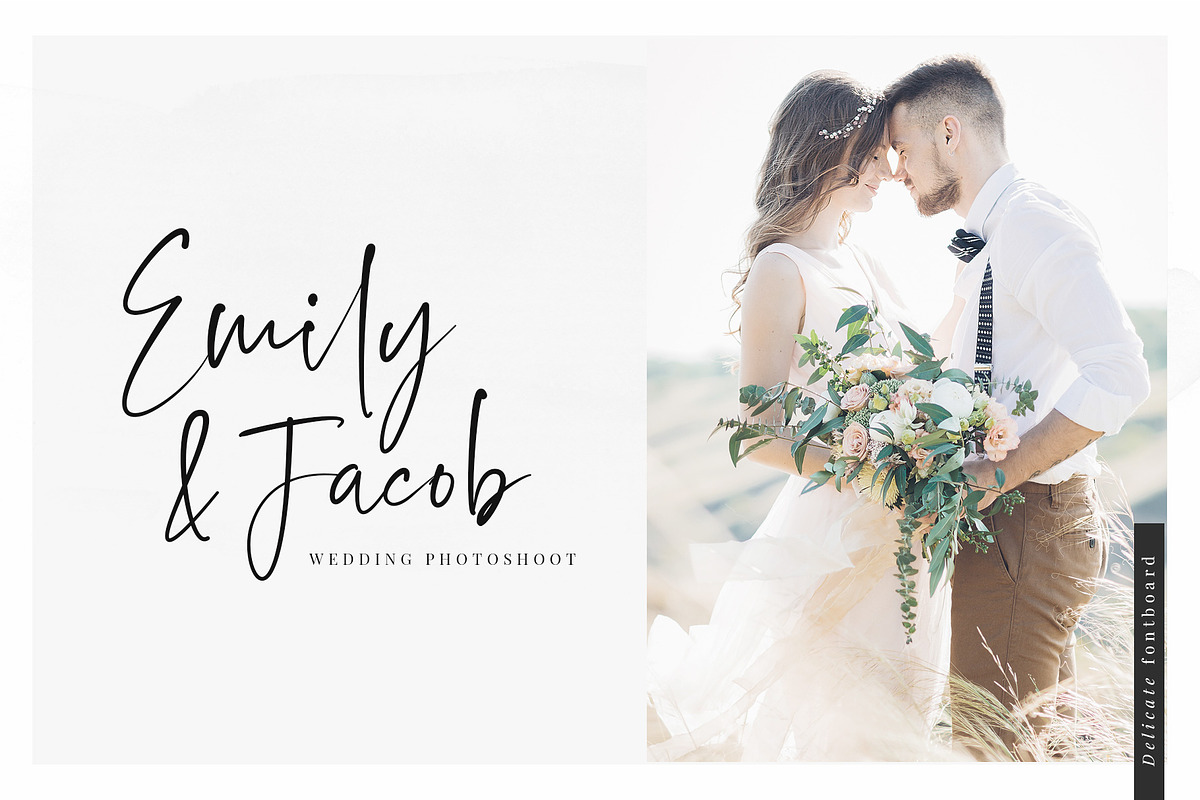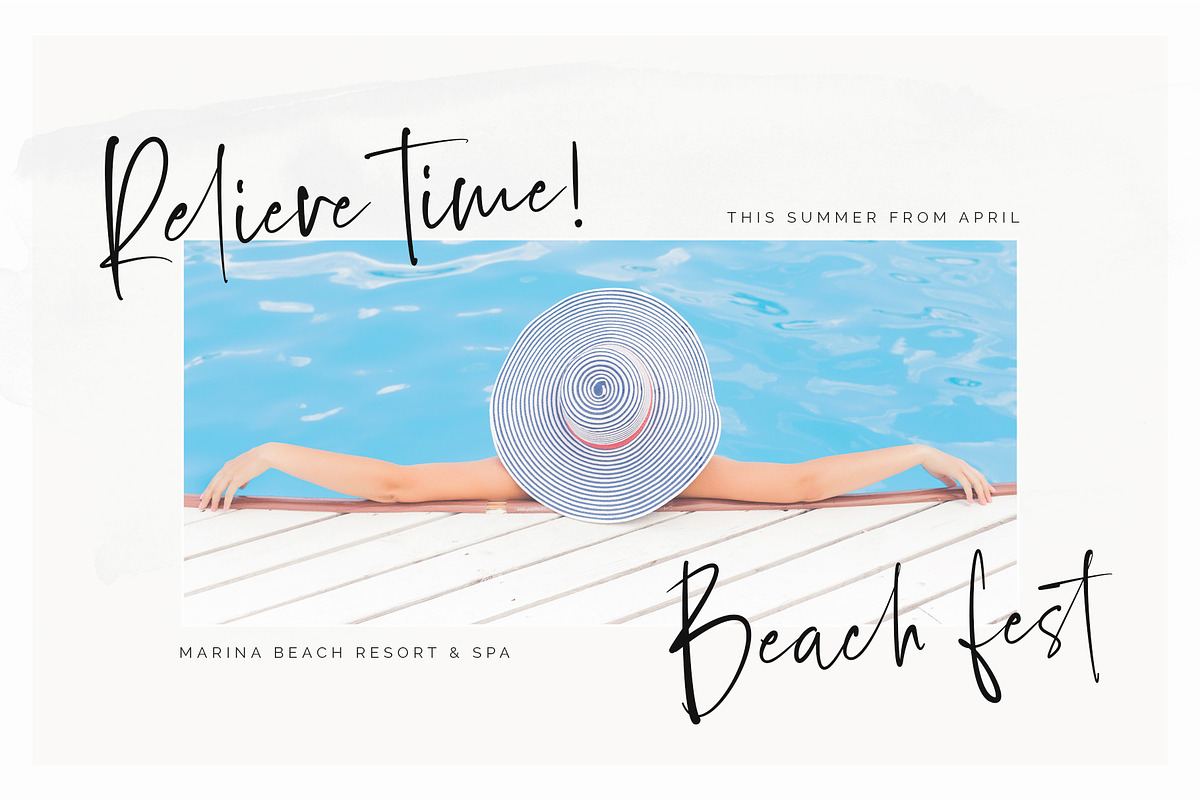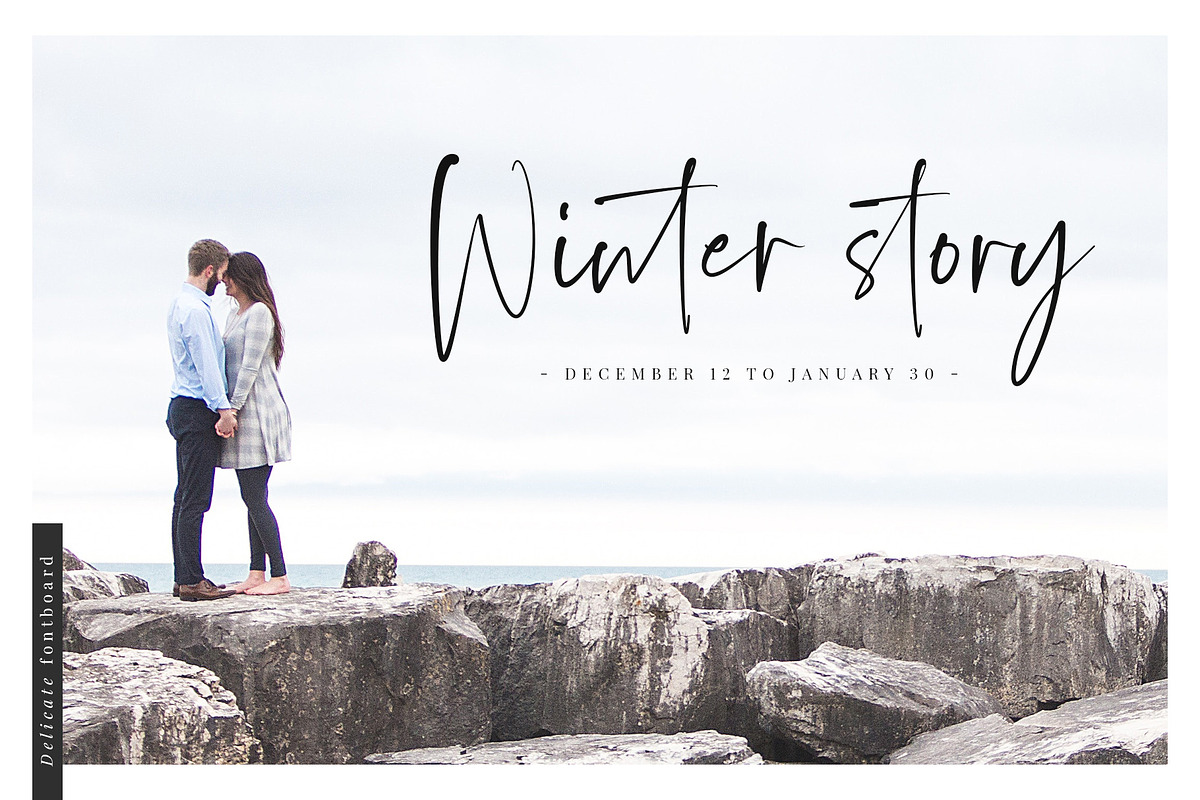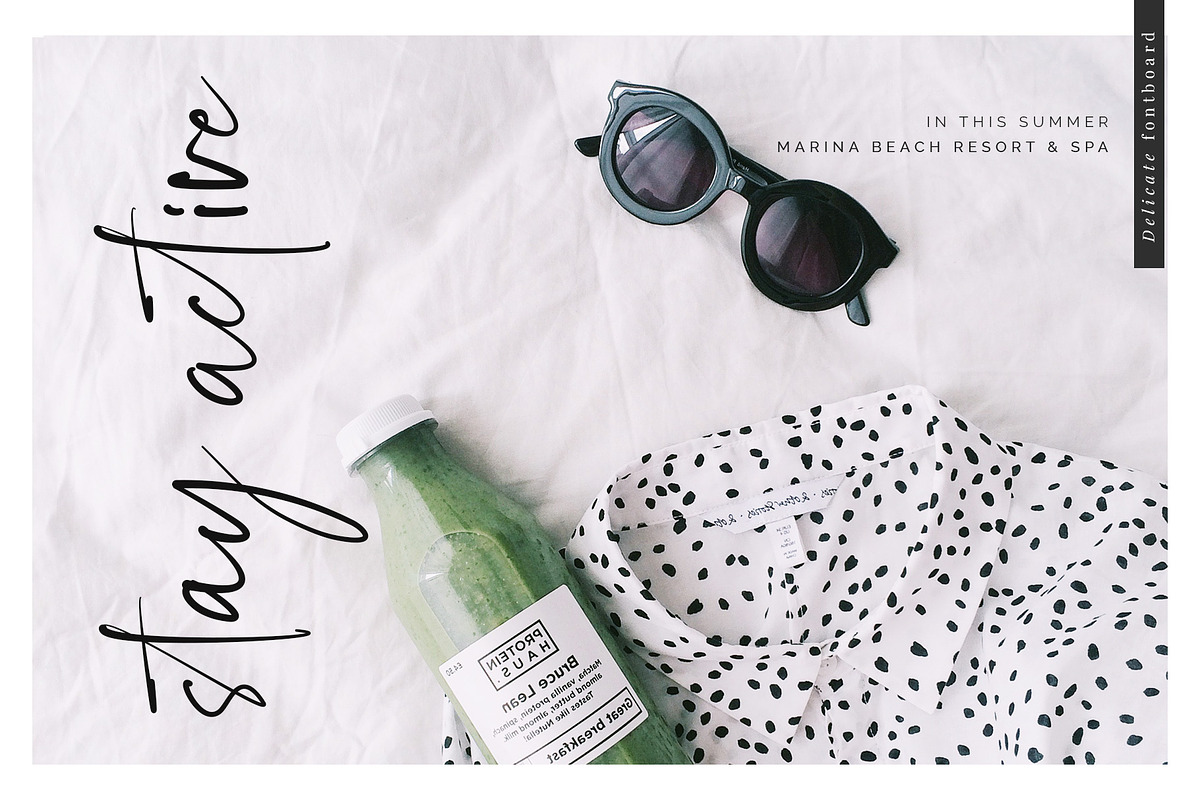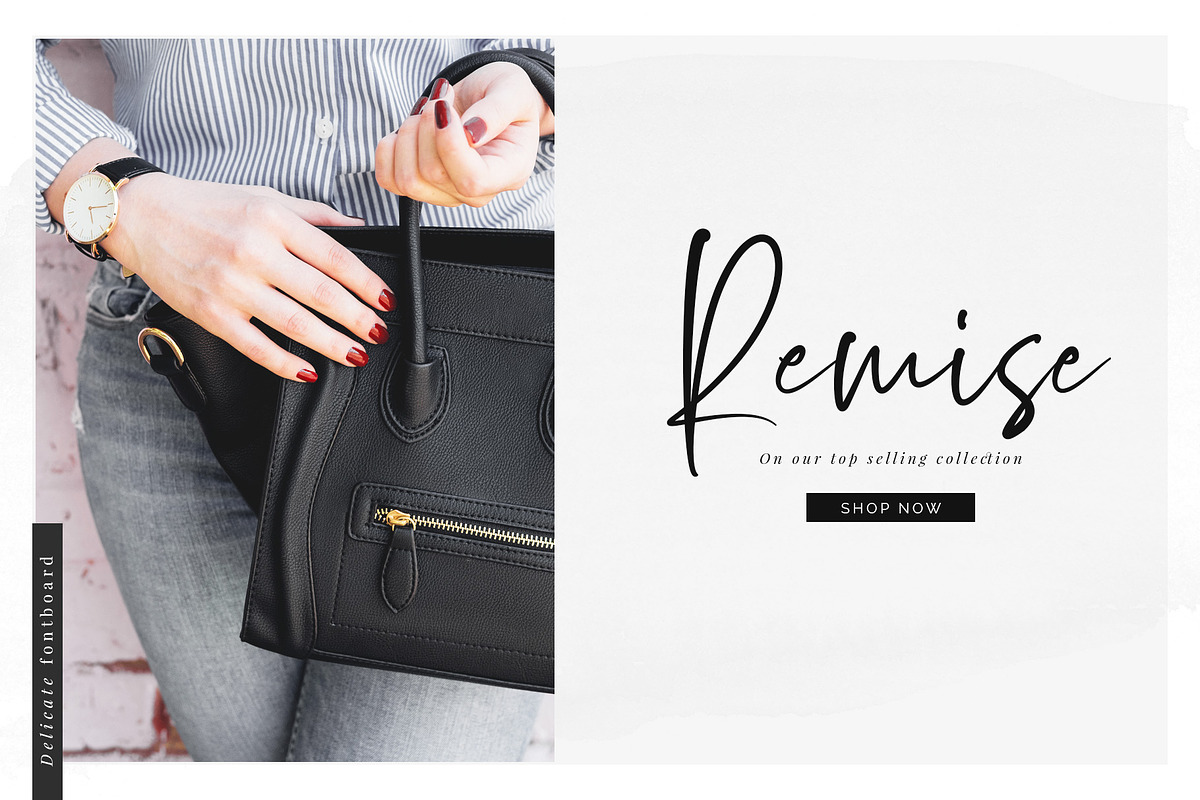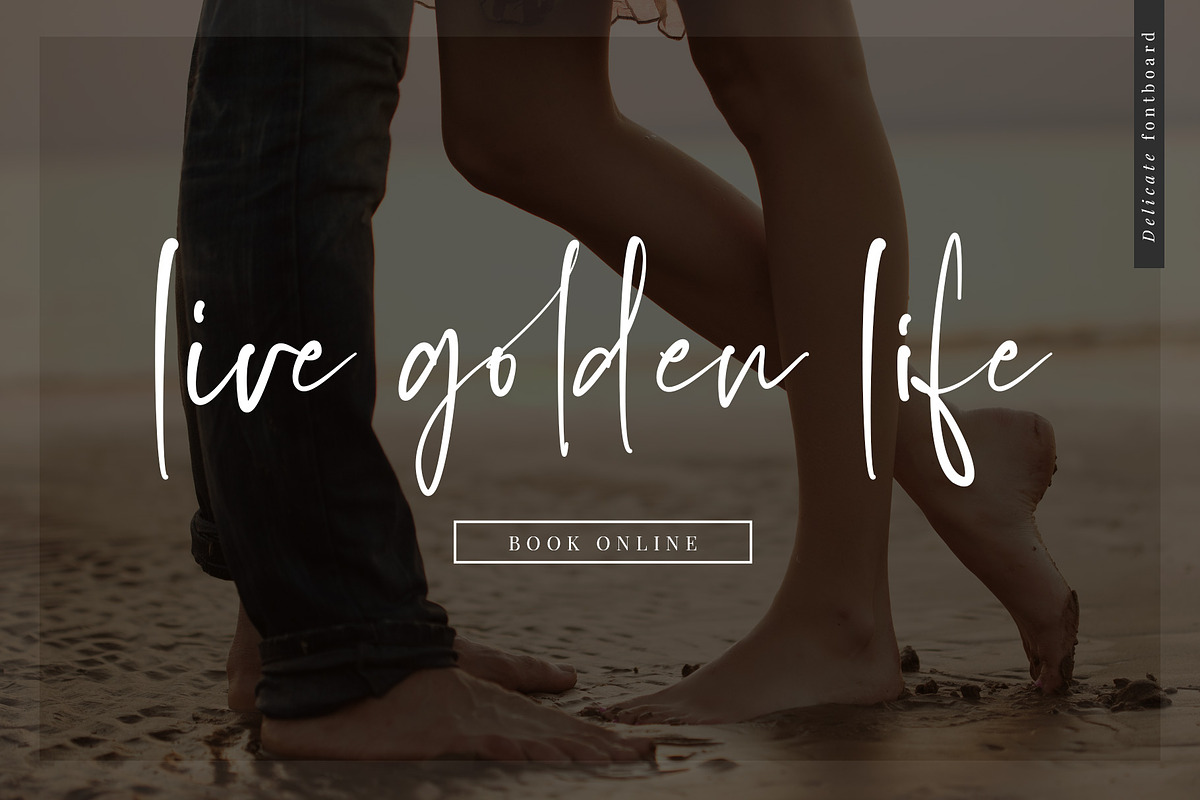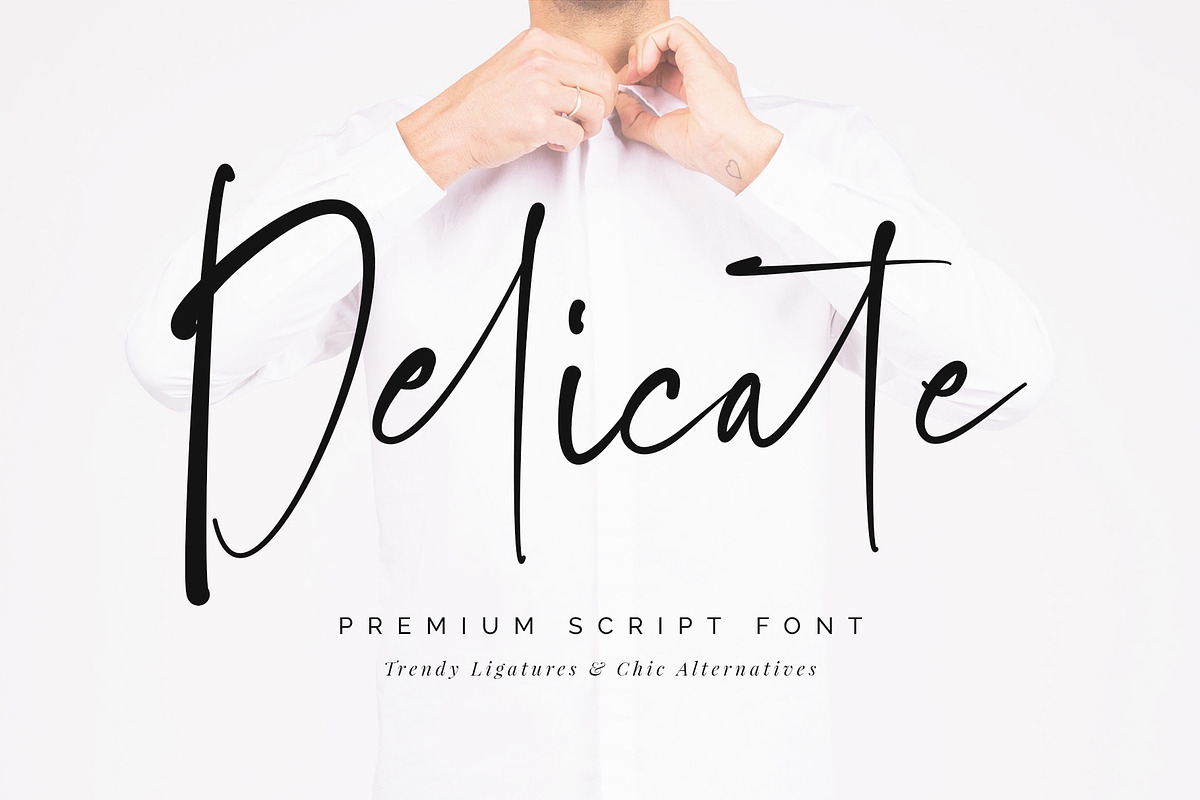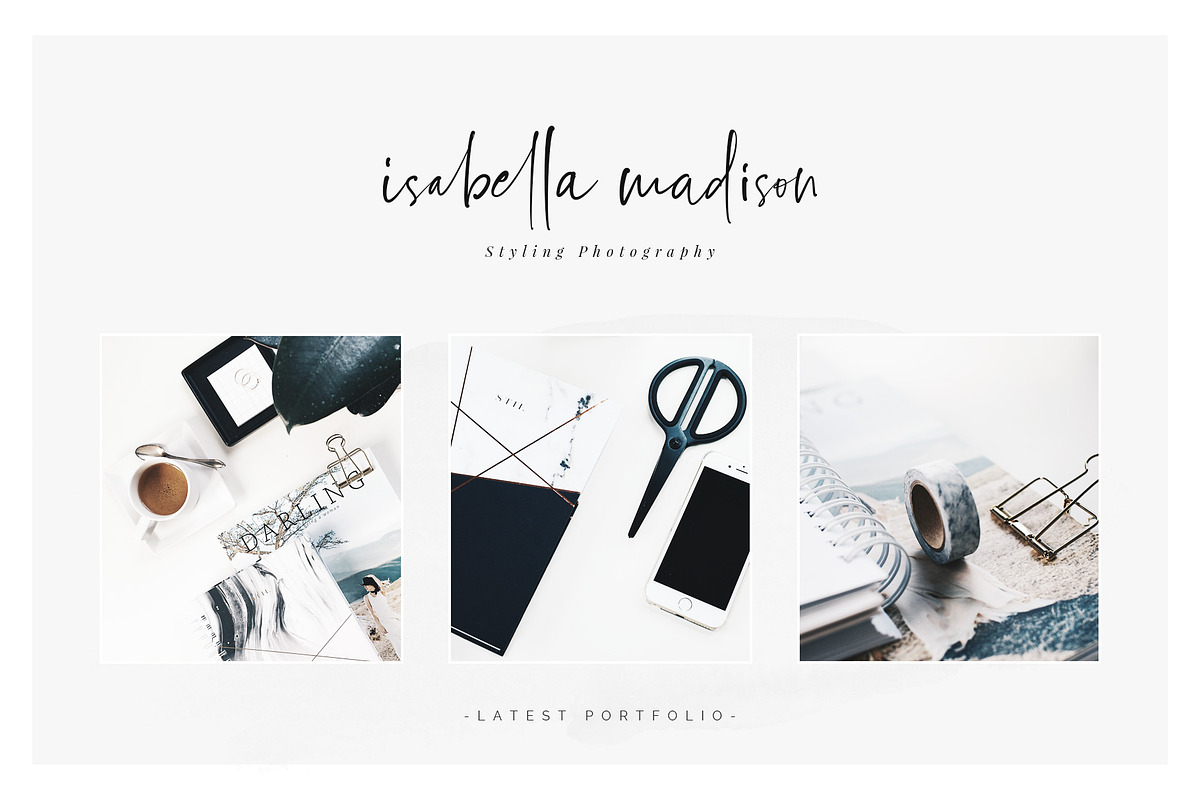
Delicate Script Font
Hi to Delicate Script Font is stylish handwritten font with smooth and clean premium font with Trendy Ligatures and Chic Alternatives. This modern calligraphic font highly detail and smooth designing, so you can use any of your personal or professional projects confidently.
- Note that Delicate Script also includes multiple design versions of same character to look your typing natural even more!
Delicate Script Font by SNIPESCIENTIST fits naturally into Branding, posters, packaging, typography.